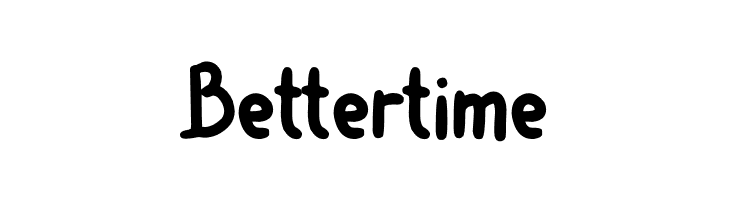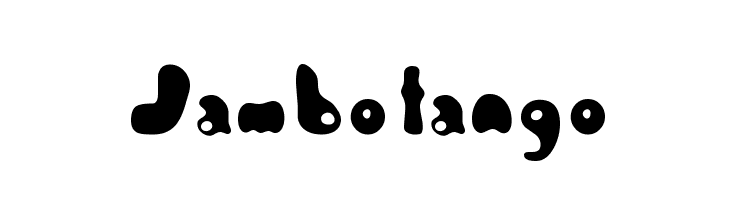
A bold, industrial-style font with angular lines and geometric elements.
A playful, flowing script font with smooth, rounded edges and consistent stroke width.
A bold, flowing script font with elegant curves and a friendly style.
A playful, casual handwritten font with irregular strokes and a friendly appearance.
A whimsical sans-serif font adorned with butterfly motifs and star accents.
A bold, angular font with a Gothic influence, perfect for decorative uses.
A calligraphic script font with elegant curves and artistic flair.
A bold, italicized font with a strong, impactful presence and modern style.
A sophisticated, slanted cursive font with elegant, flowing strokes.